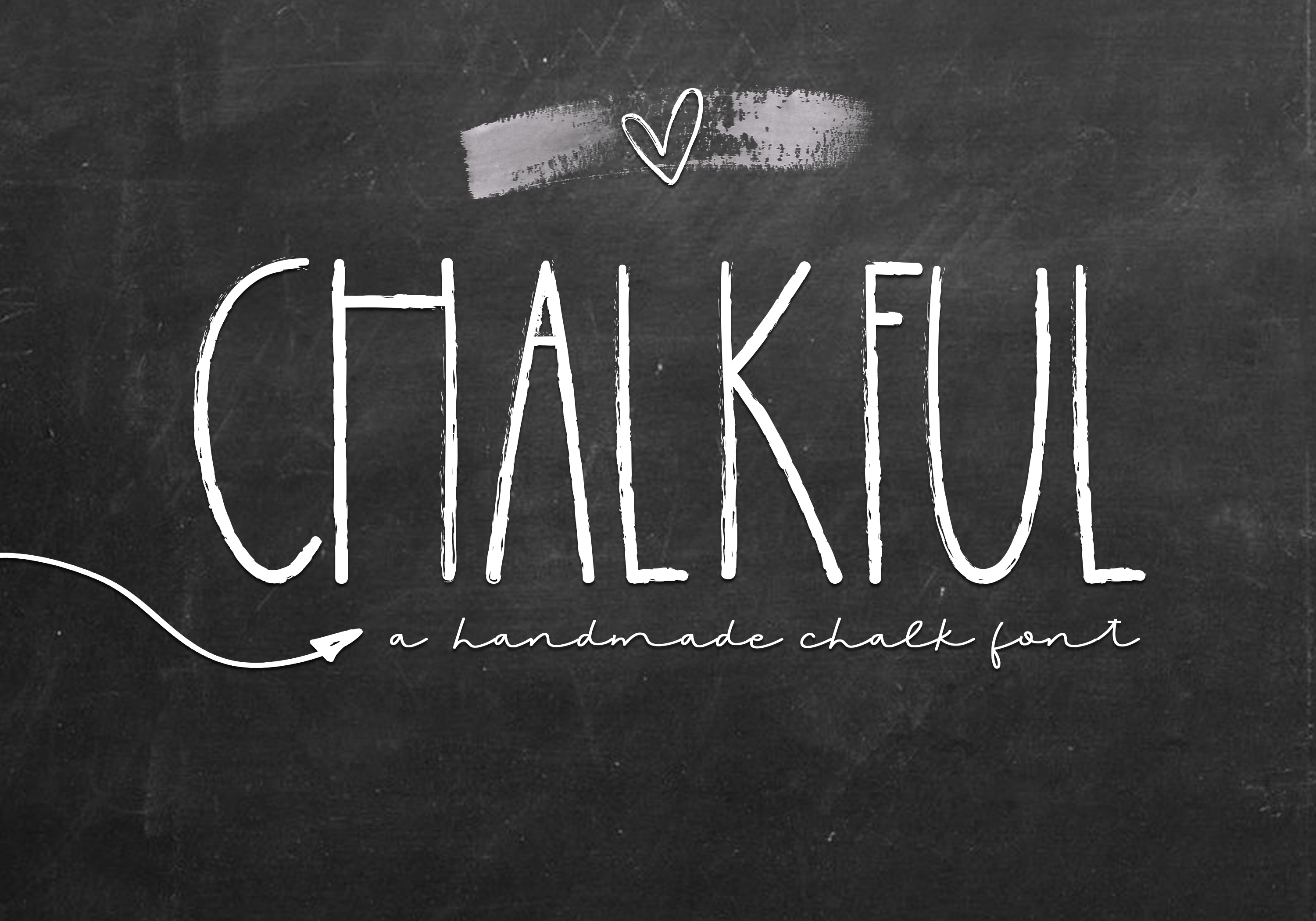
Chalkful is a cute handwritten font.
It has been handmade to look like "chalkboard writing" This font is perfect for quotes, headings, designs, logos, invitations and more! It is also great for children's designs!
This font does not include accent characters.